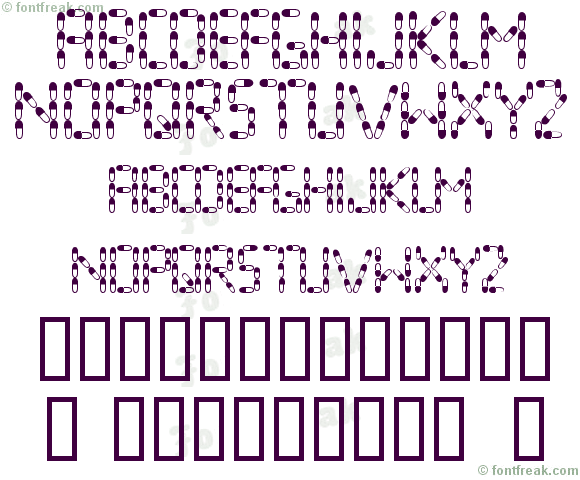
pills are good
Pills Are Good by Cheapskate Fonts is a unique display font that captures attention with its playful and vibrant design. This typeface features a distinctive style that combines rounded forms with a slightly irregular baseline, conveying a sense of whimsy and creativity. The strokes are moderate in weight, creating a friendly and approachable appearance, while the ample spacing between letters enhances readability and adds a light-hearted touch to any text. The playful character design incorporates subtle decorative elements that evoke a sense of fun and spontaneity, making it a standout choice for various creative applications.
This font is perfect for a variety of specific use cases. It shines in the realm of children's book covers, where its cheerful aesthetic can capture the imaginations of young readers. Additionally, it works wonderfully for quirky branding projects, such as organic food packaging or health-related promotional materials, where a touch of humor can appeal to the audience. The Pills Are Good font is also an excellent choice for creating vibrant social media graphics that aim to engage and entertain followers. Furthermore, it can be utilized in event invitations, particularly for casual gatherings or celebrations, where a light-hearted tone is desired.
Targeted towards graphic designers, small business owners, and content creators, this font offers a fresh and inviting option for those looking to add character to their projects. The Pills Are Good font free download is an enticing offer for anyone seeking to infuse their designs with a sense of joy and creativity.
In a crowded font marketplace, Pills Are Good stands out with its unique blend of playfulness and versatility. Its charming design is sure to leave a lasting impression, making it a valuable addition to any designer's toolkit.